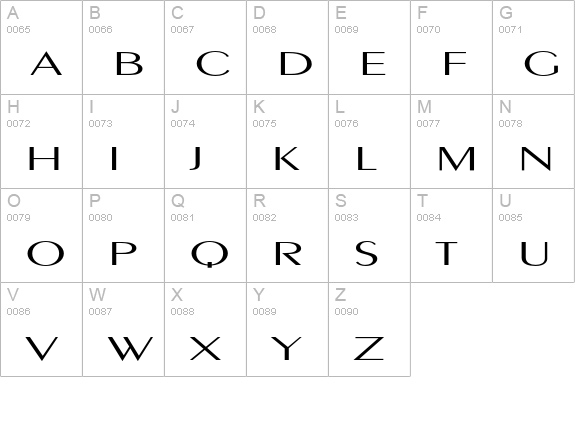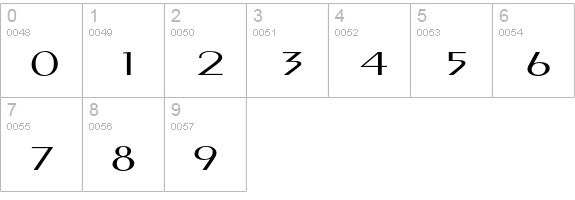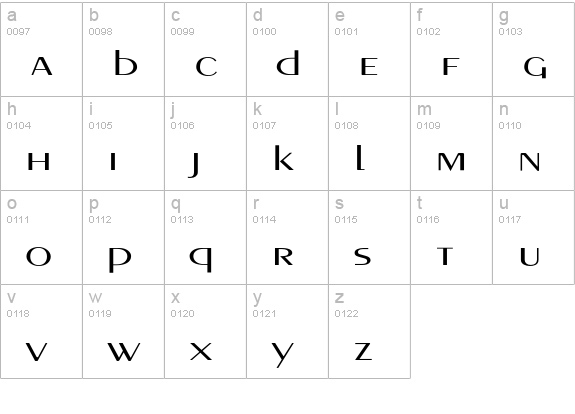
PigNoseTyp Font Details
Introducing PigNoseTyp, a whimsical and versatile font that will add a touch of playfulness to any project. With its quirky curves and bold lines, this font is perfect for creating eye-catching headlines, logos, and branding materials. But what sets PigNoseTyp apart from other fonts is its incredible affordability - it's completely free! Yes, you read that right. This delightful font can be downloaded at no cost from FontsMarket.com, making it accessible to anyone and everyone. Whether you're a professional designer looking to add some fun to your latest project or a hobbyist searching for a unique font for a personal creation, PigNoseTyp is the perfect choice. Its versatility allows it to be used in a variety of contexts, from children's books and invitations to social media graphics and website designs. With PigNoseTyp, you can let your creativity run wild without worrying about breaking the bank. And with its freely available download at FontsMarket.com, you can start using this font in your designs right away. So why wait? Add a dash of whimsy to your next project with PigNoseTyp - the free font that's as fun as it is affordable.